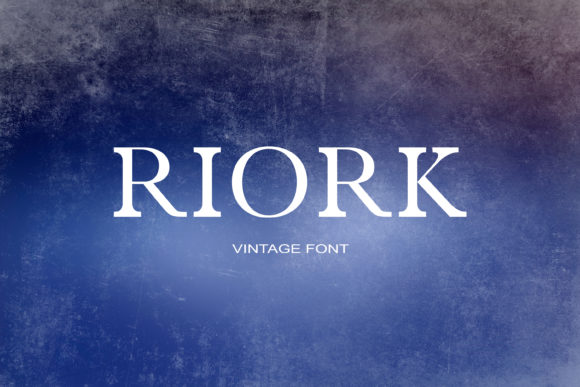
Adorn your designs with the illustrious Riork Font, a captivating serif masterpiece crafted by DmDesignsStoreArt. Prepare to be mesmerized by its stunning presence, a fusion of elegance and boldness that will elevate your creations to new heights. Dive into a world of exquisite typography, where each letter dances with grace and precision.
Riork Font, a member of the distinguished serif font family, exudes an aura of sophistication and charm. Each meticulously crafted glyph is a testament to the designer's artistry, showcasing refined curves and sharp edges that harmonize beautifully. Its timeless design transcends trends, ensuring your projects radiate an aura of enduring elegance.
Unleash your creativity and embrace the versatility of Riork Font. Whether you're crafting logos that demand attention, designing brochures that exude professionalism, or creating social media graphics that captivate audiences, Riork Font is your trusted companion. Its adaptable nature seamlessly blends with diverse design aesthetics, adding a touch of refinement and distinction to every project you undertake.
Become a typography virtuoso with Riork Font. Its intuitive design makes it a breeze to use, even for those new to the world of font exploration. Experience the joy of effortless text manipulation, where every word and letter bends to your will, allowing you to craft typographic masterpieces with unparalleled ease.
Embark on a typographic adventure with Riork Font and discover a world of endless possibilities. Let your imagination soar as you weave captivating headlines that dance across the screen, craft body text that captivates readers with its readability, and design social media posts that ignite conversations. Riork Font is your gateway to typographic excellence, transforming ordinary designs into extraordinary works of art.
Experience the Riork Font difference today and elevate your projects to new heights. Embrace the power of typography and unlock a world of creative possibilities. With Riork Font as your ally, you'll leave a lasting impression on your audience, captivating their attention and leaving them craving more. So, why settle for ordinary fonts when you can immerse yourself in the extraordinary? Make Riork Font your weapon of choice and embark on a typographic journey that will redefine your creative horizons.